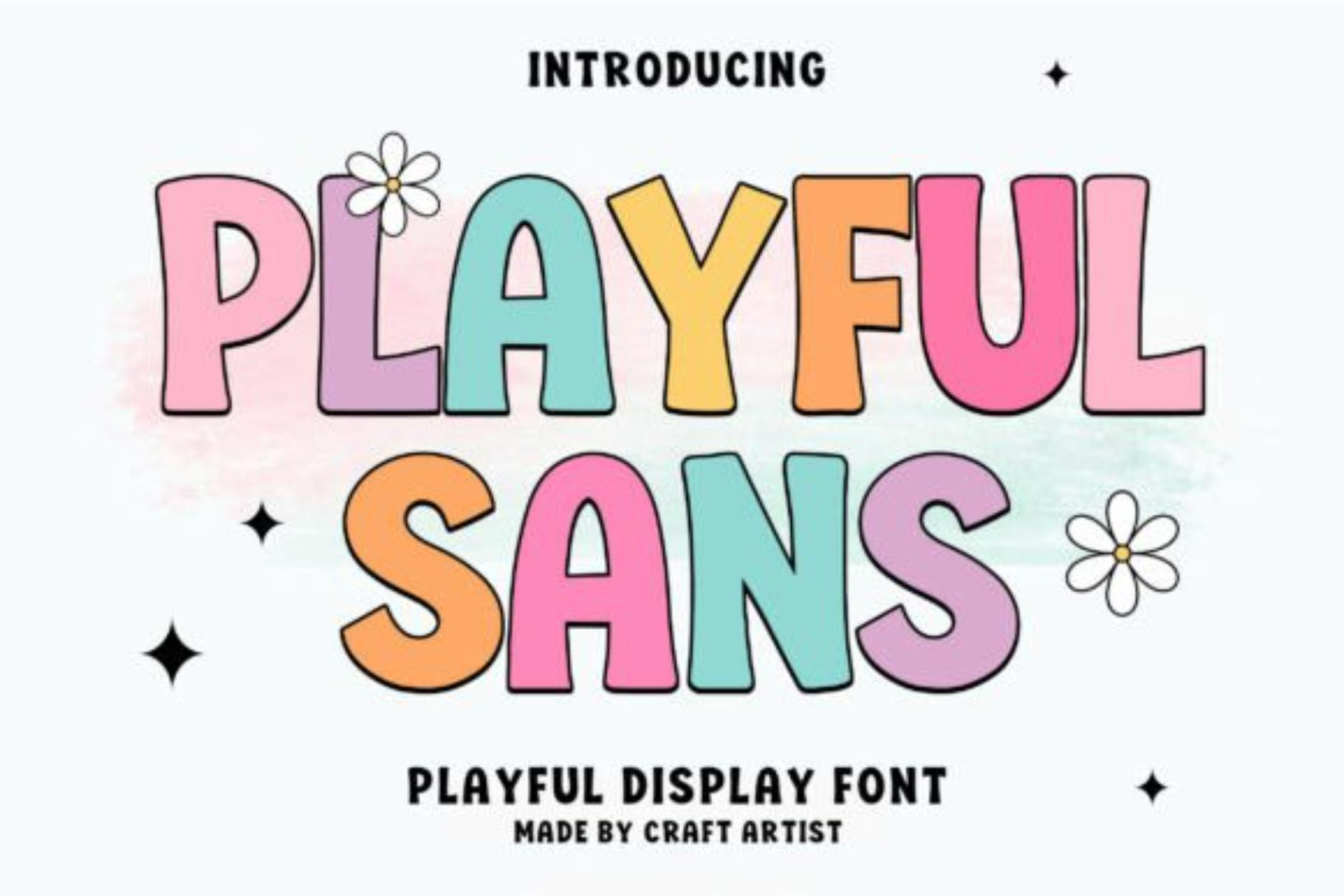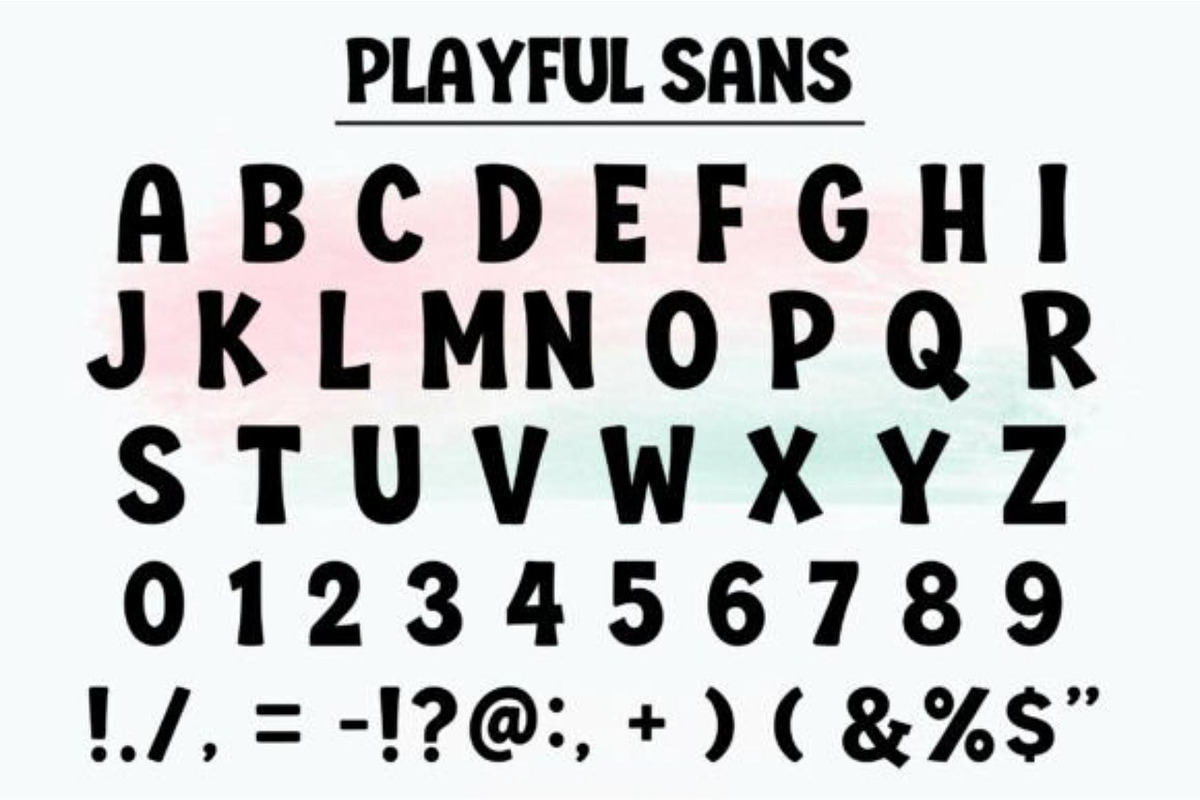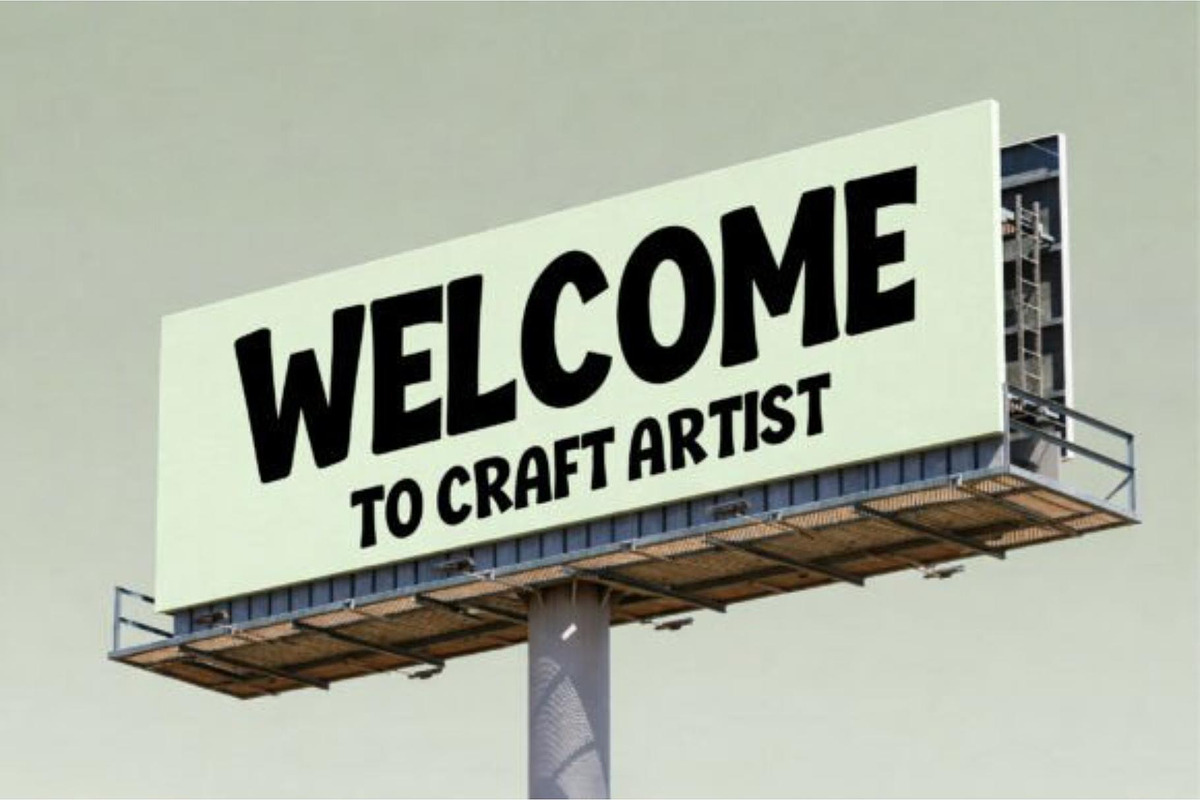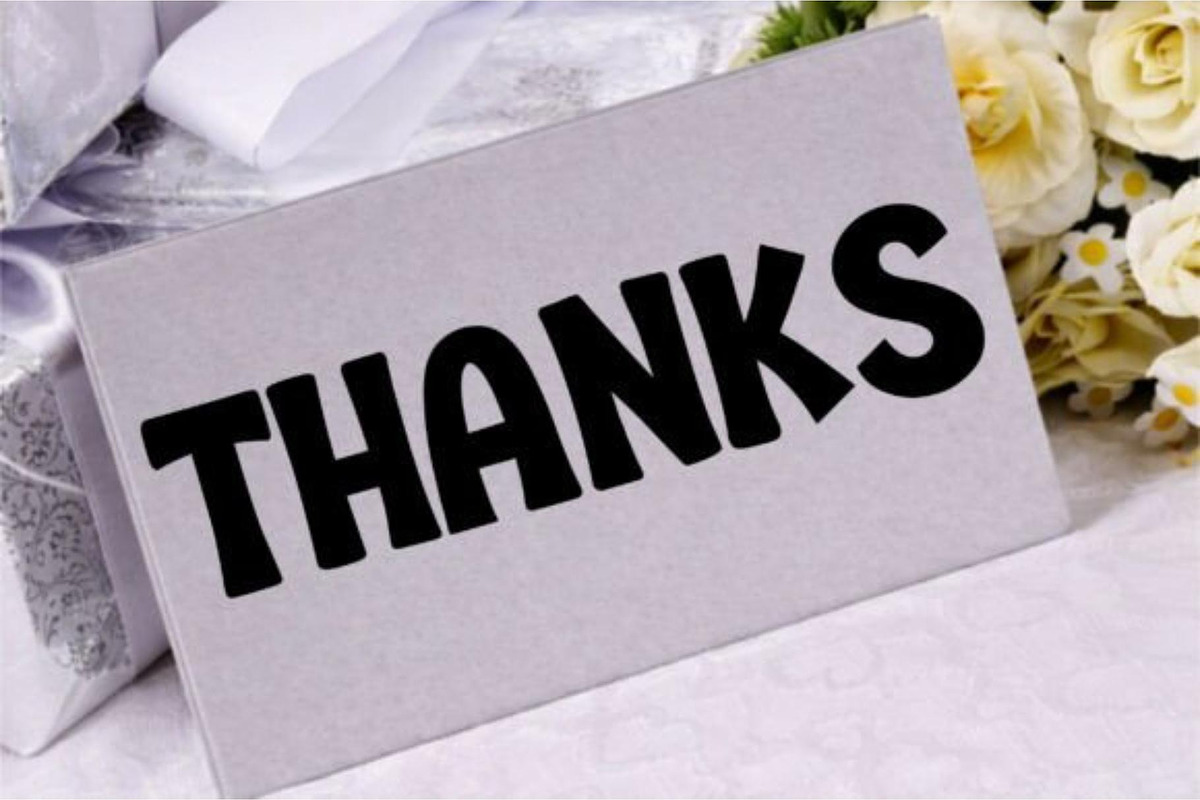
Playful Sans 3 Modern Display Font
Playful Sans 3 is a bold and playful display font designed to make your designs stand out.
With its fun character shapes and modern style, this font is perfect for eye-catching headlines, branding projects, social media graphics, packaging, and creative marketing materials.
• Posters & Headlines
• Kids Branding
• Social Media Graphics
• YouTube Thumbnails
• Logo Design
• Packaging Design
• T-Shirt Designs
• Event Promotions
• Advertising Materials
• Creative Projects
Playful Sans 3 brings energy, personality, and modern creativity to your typography projects, making it ideal for brands and designs that need a bold visual impact.